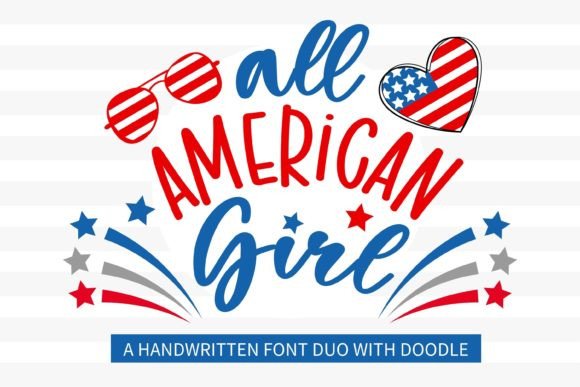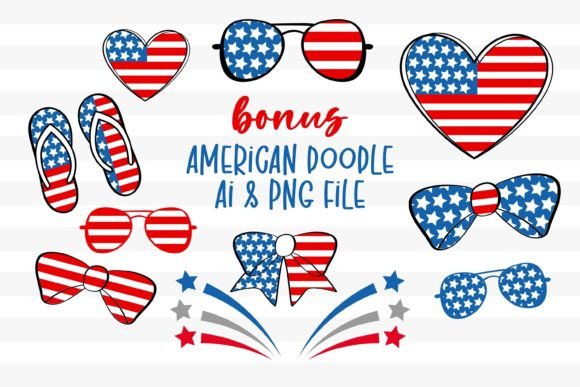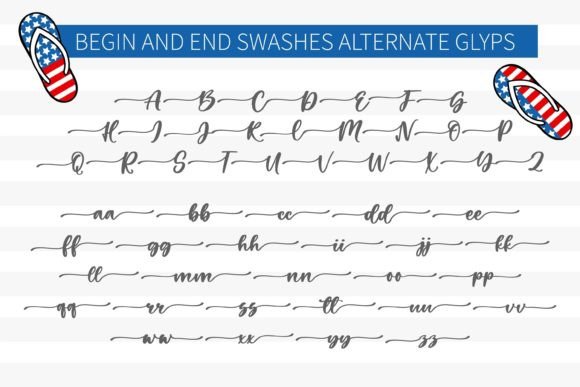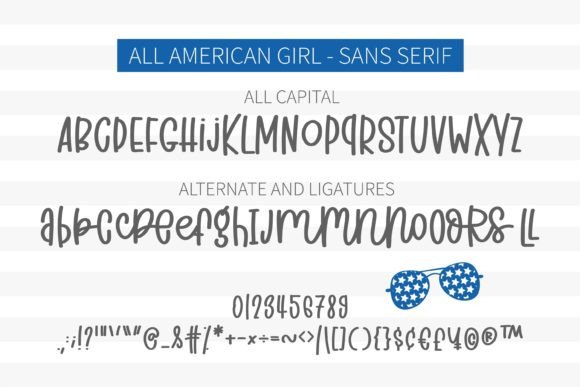
All American Girl Font
About the All American Girl Font
Meet All American Girl Font, a stunning font that brings a touch of elegance and professionalism to any design. All American Girl is a duo-styled handwritten font with a bonus clipart that feels equally charming and delicate. This font is PUA encoded, which means you can easily access all of the glyphs and swashes! All American Girl will turn any creative idea into a standout!
All American Girl Font Usage Examples